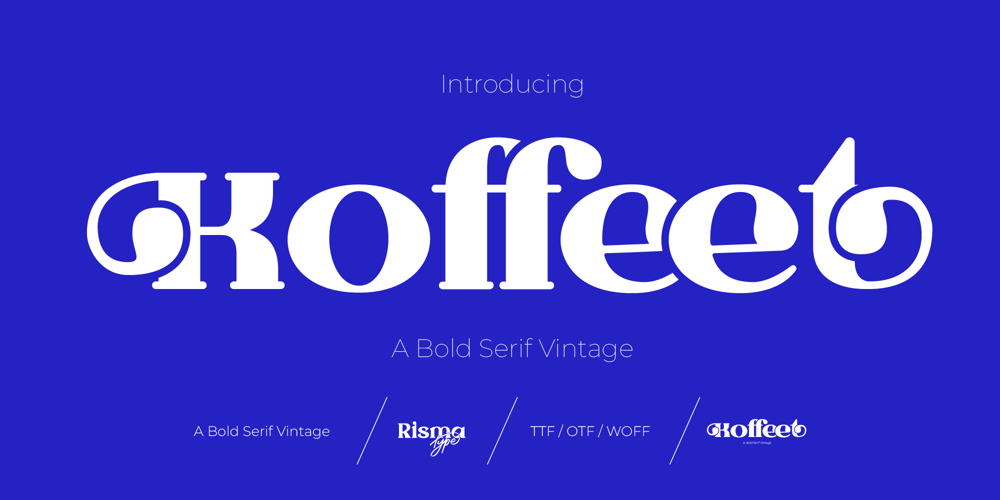
Koffeet Font Family was designed by Risma Mulyasari and published by Risma Type. Koffeet contains 2 styles and family package options. Koffeet: A Bold Serif Vintage FontBold, timeless, and exuding vintage charm, Koffeet is a serif font designed to evoke a sense of nostalgia while maintaining a modern edge. With its robust strokes, elegant serifs, and subtle distressed textures, this font captures the essence of classic typography with a contemporary twist. Perfect for designs that require a touch of sophistication and character, Koffeet is ideal for branding, packaging, editorial design, or any project that aims to blend the old-world charm with a bold, confident aesthetic.Key Features: Bold serif style with vintage-inspired details Subtle distressed textures for an authentic, aged look Versatile for both print and digital media Perfect for branding, logos, packaging, and editorial design Multi-language support for global usability Bring a touch of timeless elegance to your designs with Koffeet – where boldness meets vintage allure!